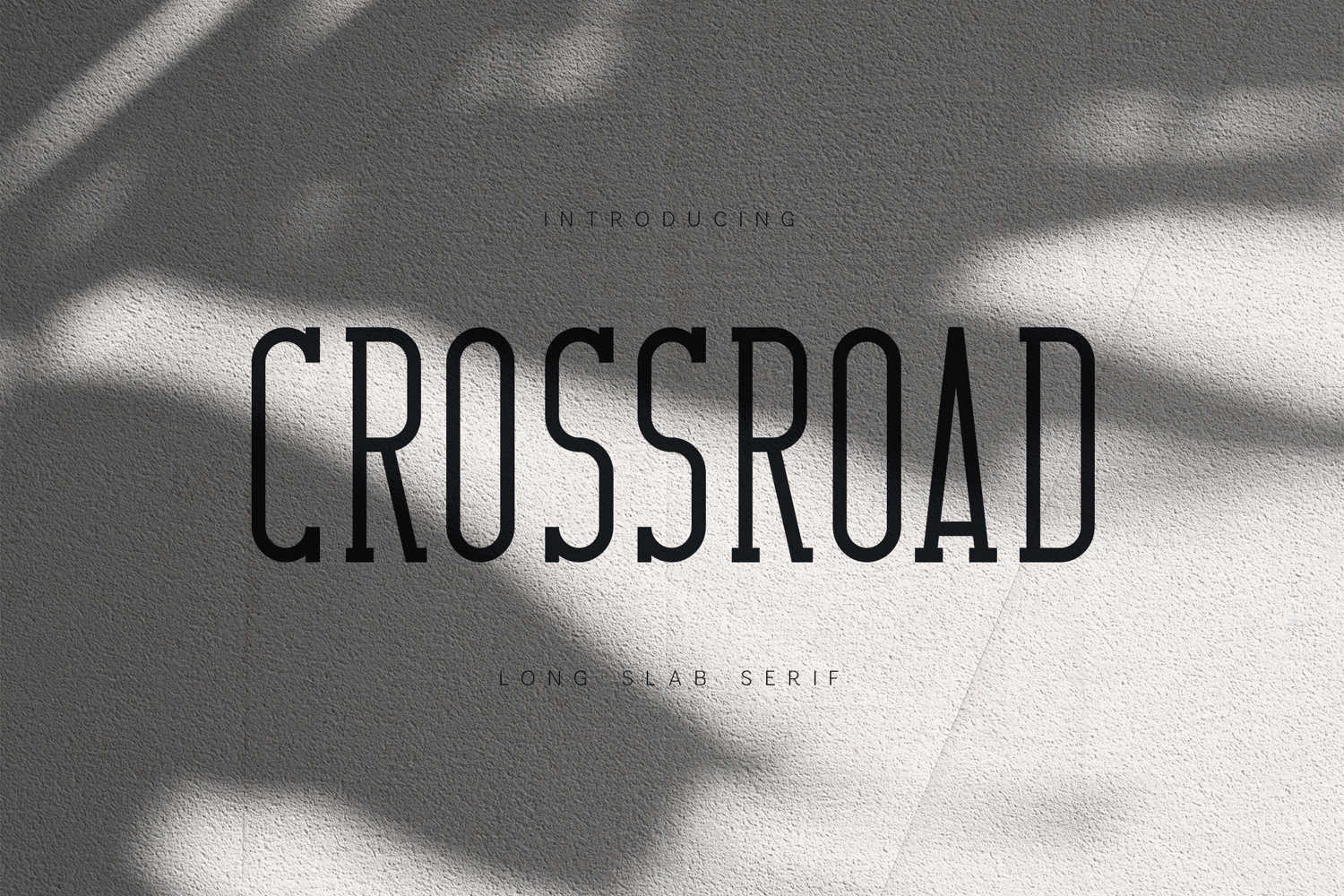
Crossroad - Long Slab Serif
Crossroad is a refined long slab serif typeface designed for modern editorial, branding, and display use. With its tall proportions, narrow letterforms, and subtle slab serifs, Crossroad strikes a balance between elegance and strength. The font delivers a calm, contemporary tone while retaining a timeless, architectural character.
Carefully crafted for clarity and visual rhythm, Crossroad works beautifully in headlines, posters, magazines, logos, packaging, and minimalist layouts. Its extended vertical structure makes it ideal for fashion editorials, cultural projects, and premium brand identities that require confidence without noise.
Crossroad is built for designers who appreciate quiet sophistication—where form is intentional, space matters, and every letter feels considered.